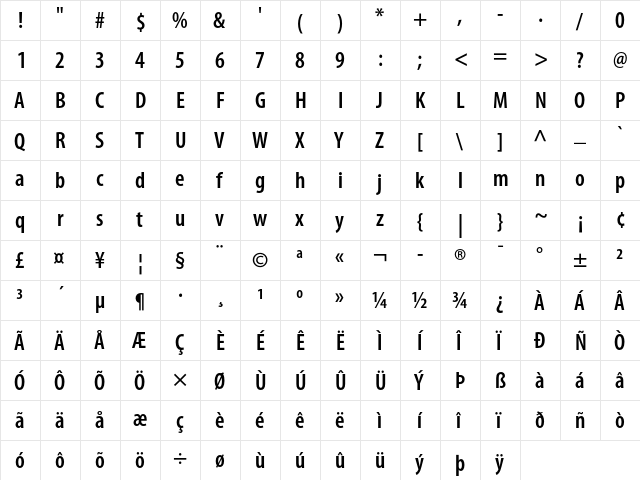
Myriad Semibold Condensed Font Preview
Myriad Semibold Condensed
Myriad Semibold Condensed Font Details
| Style | Semibold Condensed |
Design Context for Myriad Typeface
Myriad takes a measured approach to typography — its balanced proportions and neutral character make it a reliable workhorse for both digital and print work. The heavy weight commands attention and anchors typographic hierarchies. Its narrow stance lets it pack a punch even in space-constrained designs.